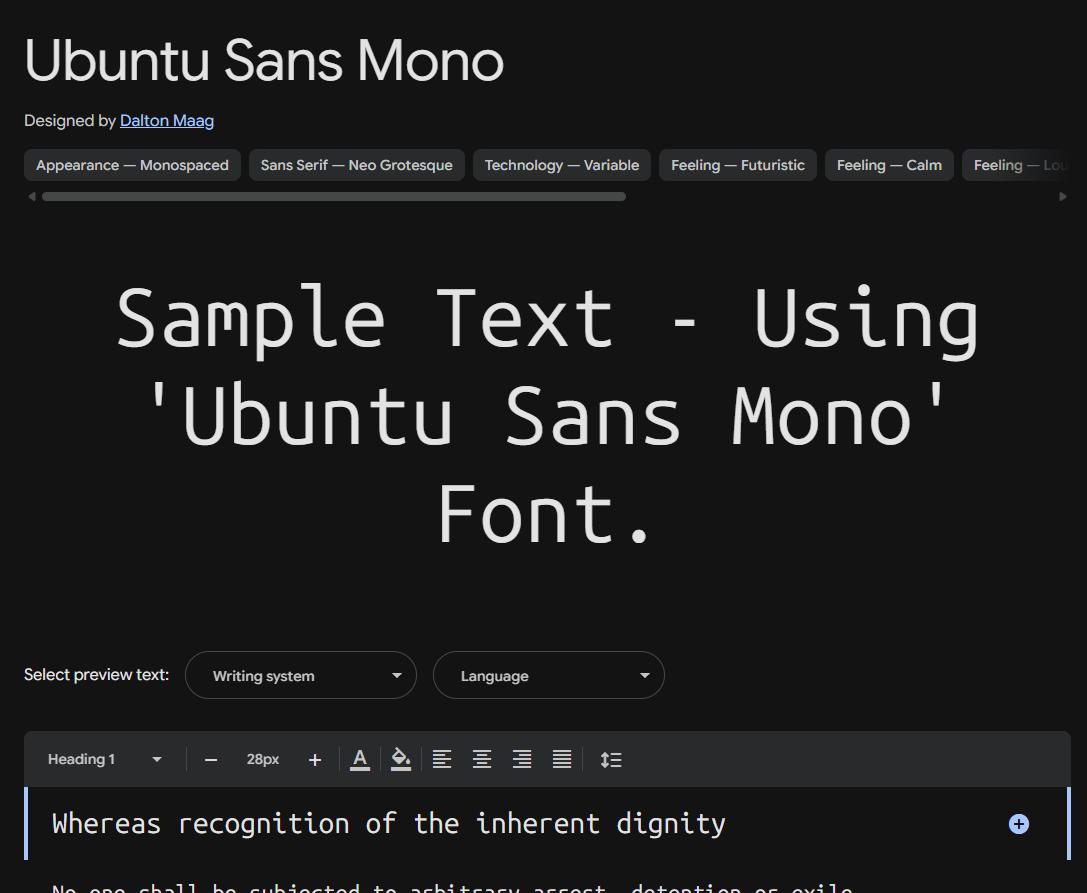
Ubuntu Sans Mono Variable represents a sophisticated evolution in open-source typography, engineered by Dalton Maag to transcend the static limitations of traditional terminal fonts through its two-axis design space. By leveraging the OpenType-variable specification, this typeface facilitates fluid interpolation across weight and width axes, allowing developers to fine-tune character density and optical clarity within constrained IDE environments. Unlike rigid geometric monospaces, it maintains the distinct humanist terminals and asymmetric curves characteristic of the Ubuntu brand, successfully harmonizing high-performance legibility with the technical flexibility required for modern, high-DPI responsive programming workflows.
Ubuntu Sans Mono represents a sophisticated evolution in the Neo-Grotesque tradition, functioning as a high-performance Variable Font (VF) that meticulously balances technical rigidity with a humanistic flair. By leveraging a continuous weight axis, this monospaced typeface shifts seamlessly from a calm, stiff business aesthetic suited for dense terminal environments to a loud, rugged presence in display headers, effectively bridging the gap between vintage computational layouts and futuristic interface design. Its unique architecture maintains a consistent x-height and generous counters that evoke a happy, approachable legibility, yet its precise, fixed-pitch alignment ensures a professional, business-grade stability. This technological versatility allows developers to transition from a rugged, utilitarian feel to a polished, stiff structural clarity, proving that the Ubuntu Sans Mono family is not merely a coding tool but a dynamic typographic system designed to harmonize the mechanical precision of code with the expressive, atmospheric nuances of modern digital branding.
While Ubuntu Sans Mono, meticulously engineered by Dalton Maag with dual-axis variability, excels in terminal environments and code syntax highlighting, it remains fundamentally unsuitable for high-density immersive editorial projects or luxury brand positioning where fluid horizontal rhythm is a prerequisite. The typeface's fixed-pitch architecture inherently disrupts the natural saccadic flow required for long-form narrative consumption, as the lack of proportional kerning pairs and the persistence of rigid character widths impede rapid word-shape recognition, leading to increased cognitive load during extended reading sessions. Furthermore, the distinctive humanist rounding and technical aesthetic of its letterforms clash with the sophisticated "high-contrast" elegance demanded by haute couture or the formal authority of legacy financial institutions, where the absence of traditional ligatures and variable-width optical sizing prevents the creation of the refined typographic hierarchy essential for premium print media and high-end marketing collateral.
Ubuntu Sans Mono maintains exceptional clarity in high-density environments due to its generous x-height and open apertures. Its optimized character spacing minimizes cognitive load during long debugging sessions by maintaining a consistent 0.5 em advance width for every glyph.
The font pairs seamlessly with its proportional counterpart, Ubuntu Sans, and various geometric sans-serifs for a cohesive interface design. Integrating it with high-contrast serif faces provides a sophisticated typographic hierarchy, leveraging the font's 11-degree italic slant for distinct semantic emphasis.
This typeface excels in print applications because its robust strokes and clear geometry prevent ink bleed and blurring on physical paper. The inclusion of extensive Unicode support ensures that complex mathematical symbols and non-Latin characters render with high-fidelity legibility in 300 DPI layouts.
The design utilizes unique terminal treatments and serif-like bars to ensure that potentially ambiguous characters are immediately recognizable. By implementing a slashed zero and distinct descender hooks, the font reduces character recognition error rates, which is critical for syntax highlighting in IDEs.
For most digital displays, a line height between 1.4 and 1.6 times the font size provides the necessary vertical breathing room. Applying a CSS line-height value of 1.5 ensures that the font's internal leading aligns perfectly with the vertical rhythm of modern grid systems.
Its fixed-width nature makes it an ideal choice for aligning rows and columns in complex data visualizations and information graphics. The font's consistent horizontal tracking enables precise coordinate mapping in SVG charts without the need for manual character adjustment.
Ubuntu Sans Mono remains legible even at sizes as small as 9px due to its strong stroke contrast and large internal counters. Hinting instructions embedded in the TrueType files optimize pixel alignment on low-DPI screens, preventing the common blurriness associated with lesser-optimized monospaced fonts.
The heavier weights possess a modern, industrial character that functions well for bold headlines in minimalist web or print designs. Utilizing the 700-weight variant creates a powerful visual anchor that contrasts sharply with white space, thanks to its high ink trap efficiency.
This typeface imparts a friendly yet professional tech-oriented vibe that aligns with open-source values and modern innovation. Its characteristic rounded terminals and spurless junctions evoke a humanistic feel that differentiates it from more sterile, traditional monospaced fonts like Courier.
Monospacing ensures that characters in successive rows line up perfectly, creating a structured and organized look for mobile dashboard metrics. This rhythmic verticality facilitates easier parsing of tabular data, as each glyph occupies exactly the same width regardless of its specific weight or style.